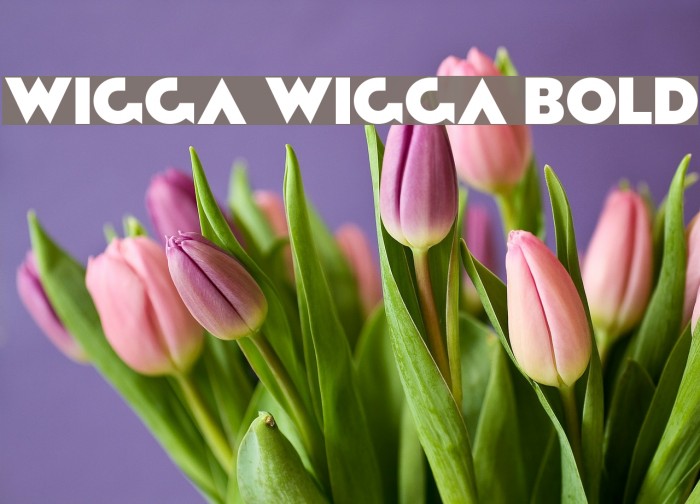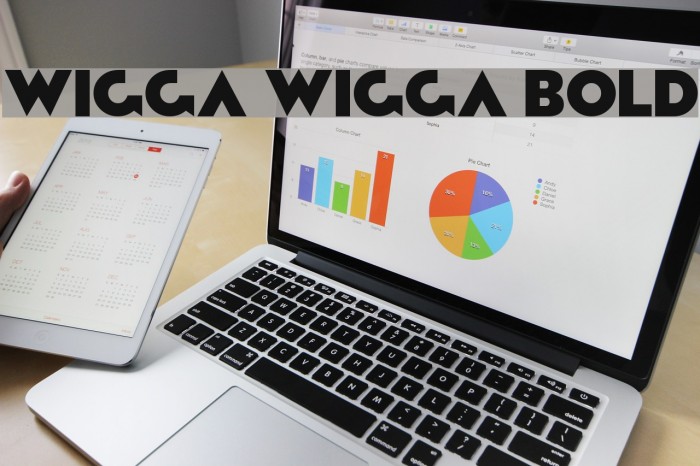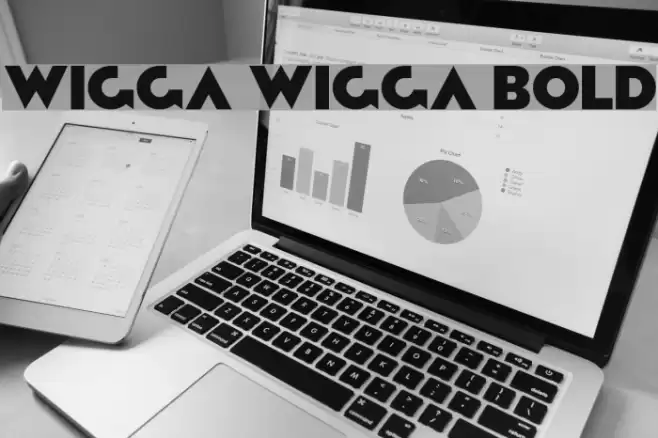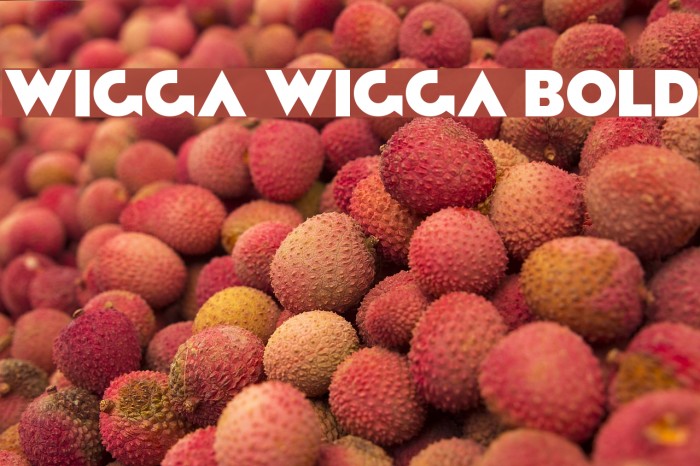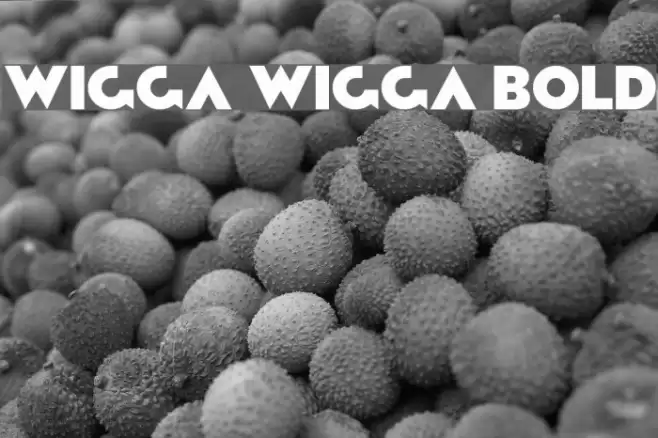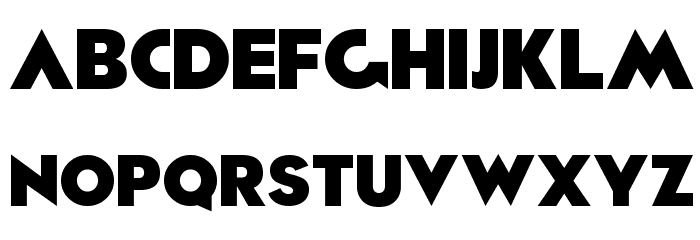
Wigga Wigga Bold Font
Wigga Wigga Bold Description
This bold and striking font features a geometric and angular design, characterized by its sharp edges and strong presence. The uppercase letters are uniform in height, creating a cohesive and balanced appearance. The bold weight of the font enhances its impact, making it ideal for attention-grabbing headlines and titles. The design is modern and clean, with a distinctive style that stands out in any context. The characters are evenly spaced, ensuring readability while maintaining a compact look. This font is perfect for projects that require a bold statement, such as posters, logos, and branding materials.
| Proposed Projects | Ideal for posters, logos, branding, and headlines. |